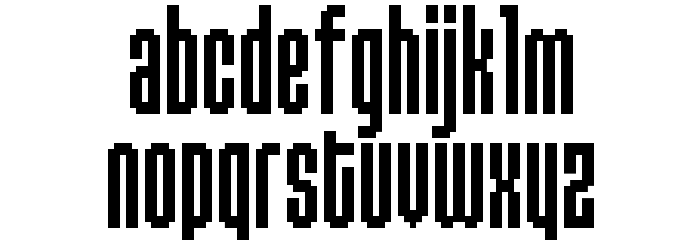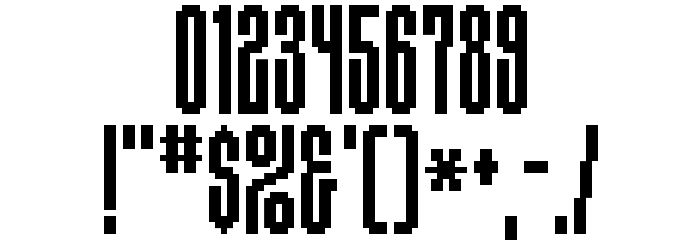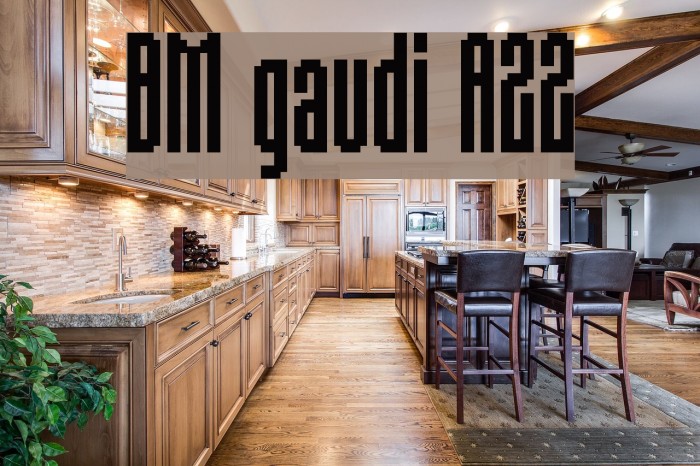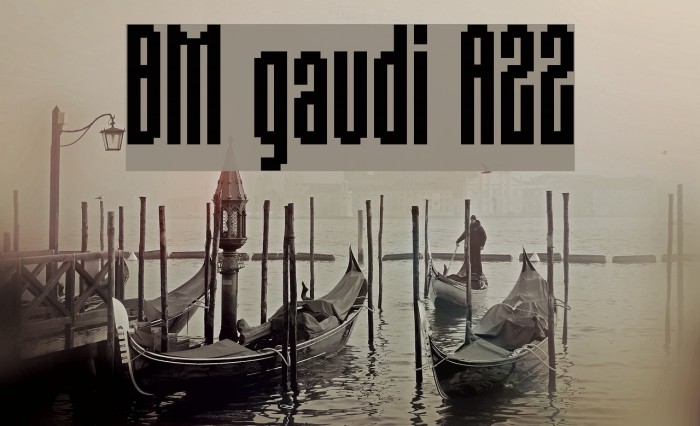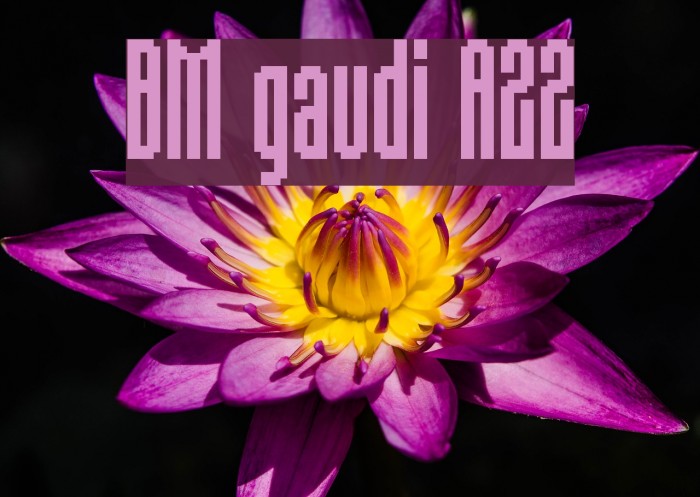
BM gaudi A22 Font
This font features a bold, geometric design with a strong vertical emphasis. The characters are constructed with sharp, angular lines, giving it a modern and edgy appearance. The uppercase and lowercase letters maintain a consistent height, creating a uniform look across the text. The numerals and special characters follow the same geometric style, ensuring visual coherence. The overall design is reminiscent of digital or pixelated fonts, making it suitable for contemporary and tech-oriented projects.
A bold, geometric font with a modern, pixelated style.
- Proposed Projects: Ideal for digital art, tech branding, video game interfaces, and modern posters.
- Character Spacing: Tight